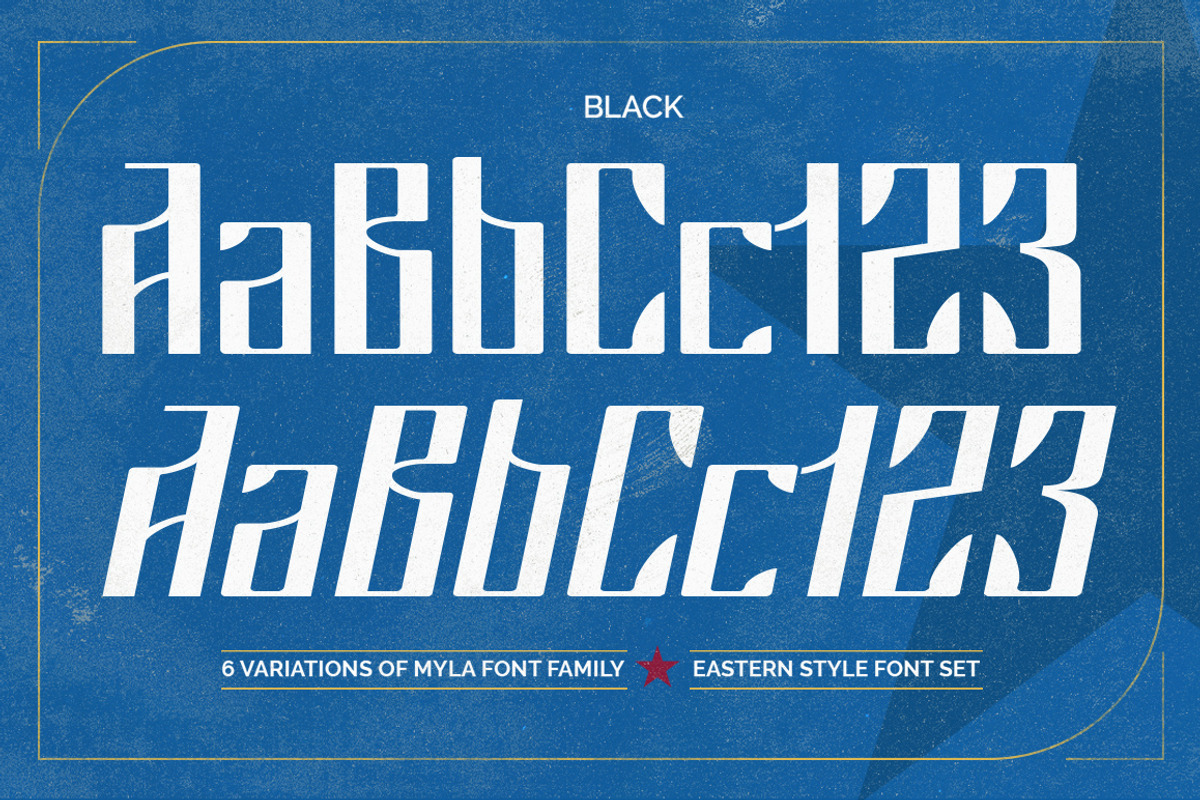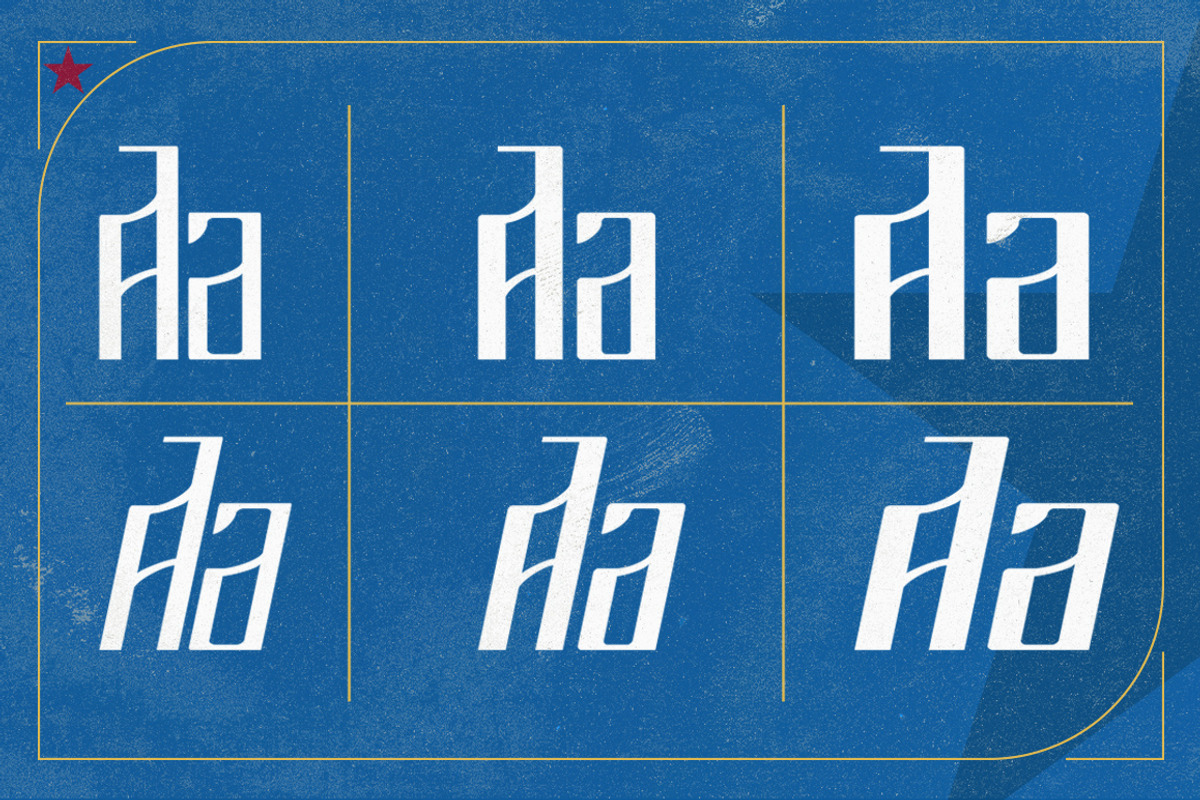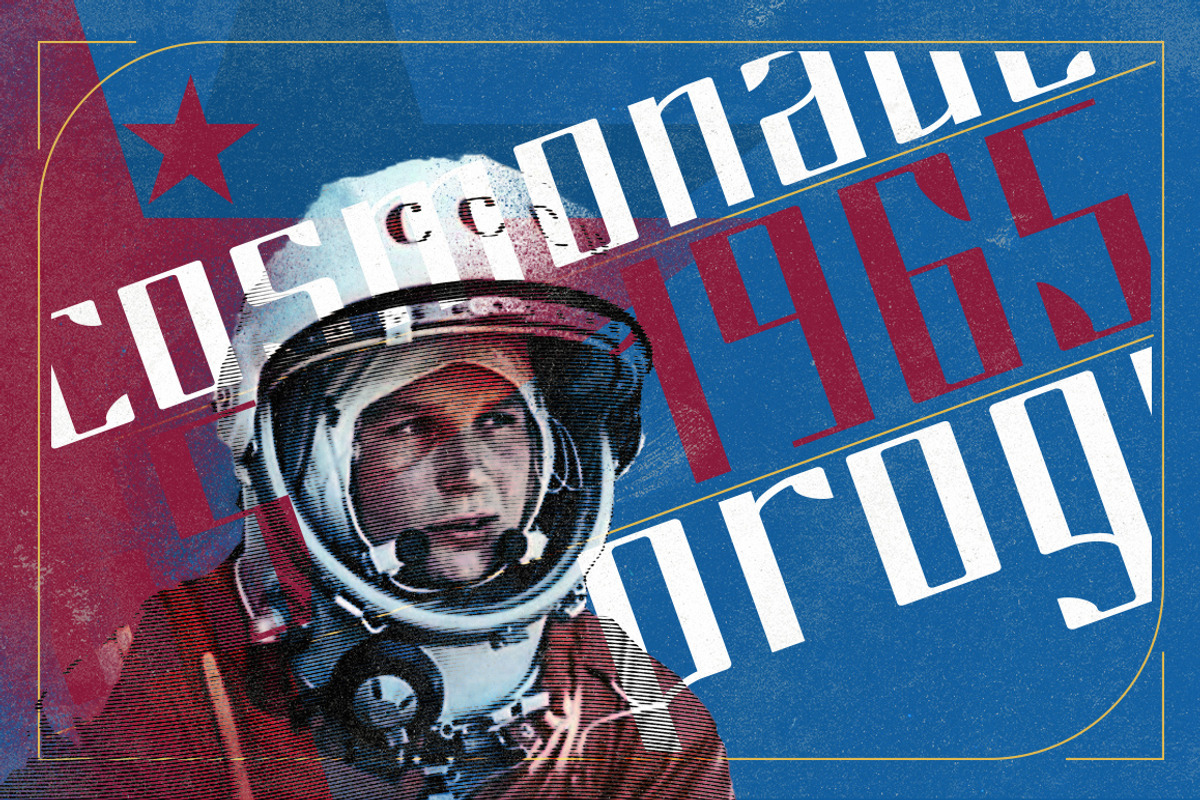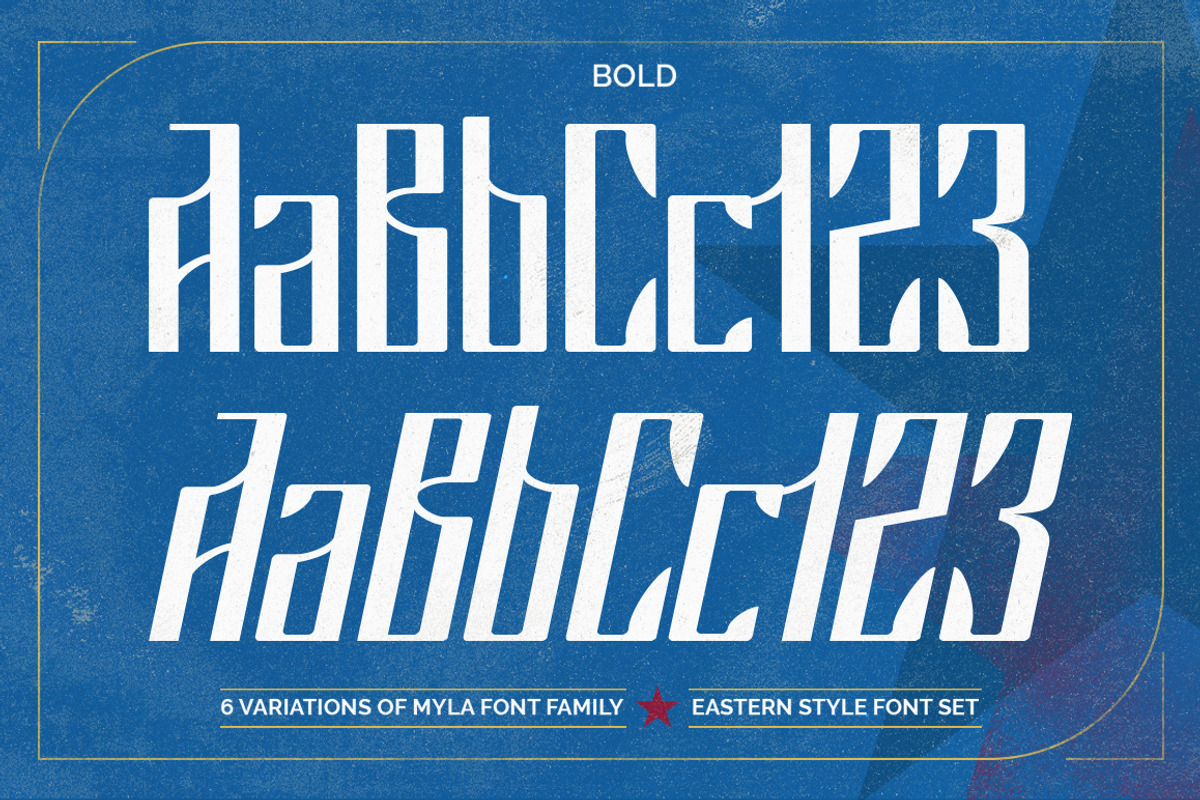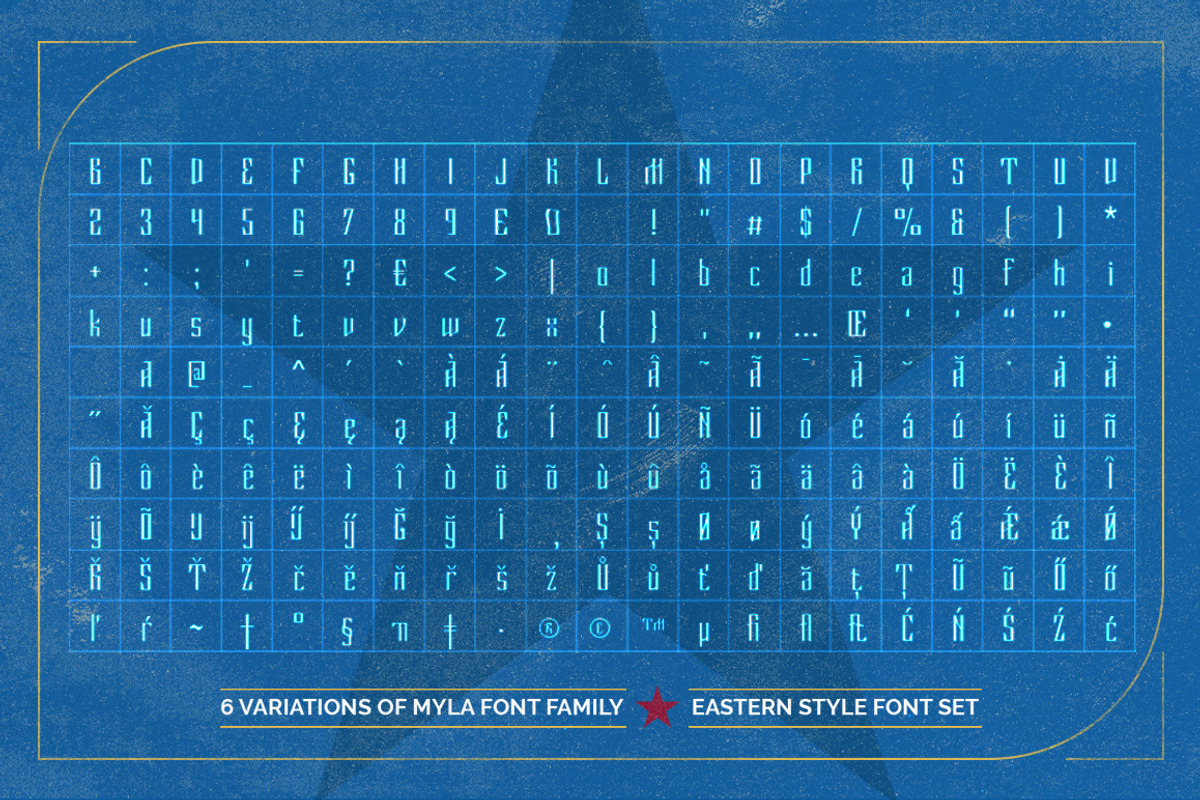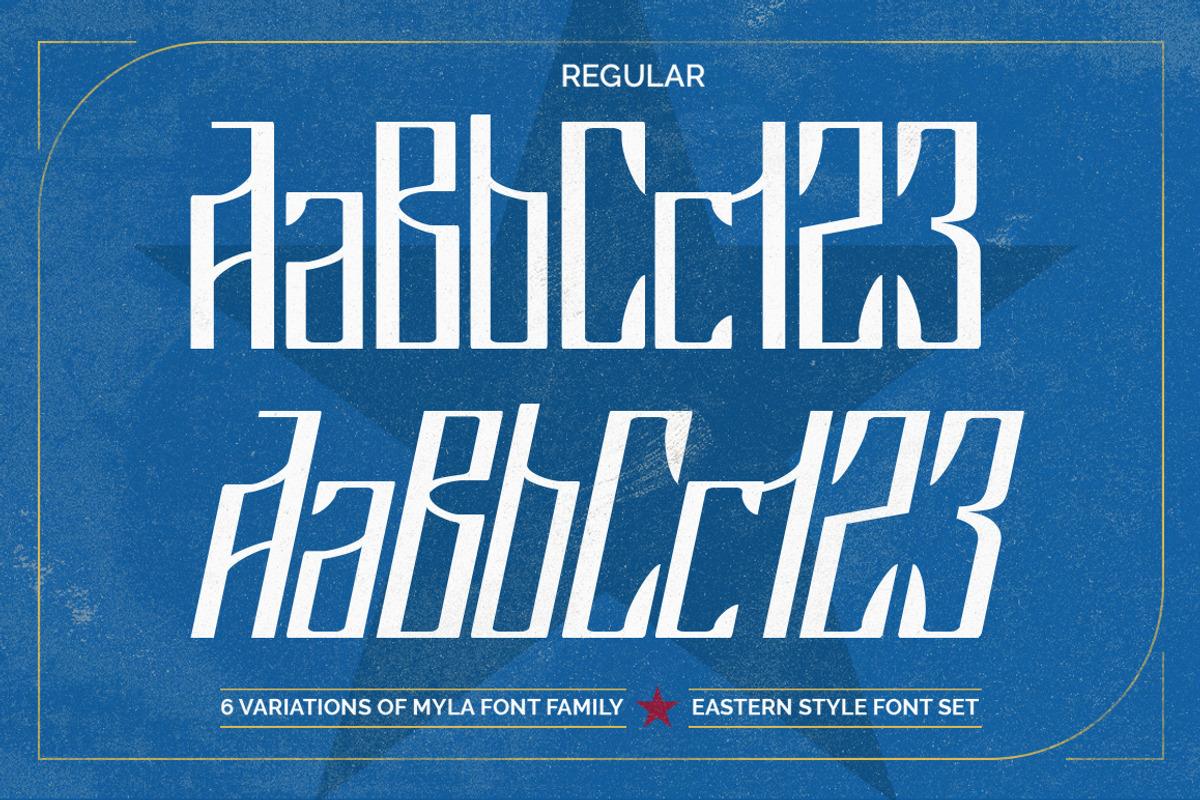
Myla Font
With Myla Fontyou can make it easier to convey the message in your design. Use its eastern, old soviet inspired style for awesome display, labeling, clothing, movie sceen, poster, movie title, gigs, album covers, logos, and much more.
It comes in 3 styles: Regular, Bold and Black in 2 variations of regular and italic. Inspired by easter and soviet tradition, hardworking people and 1960s it is ideal for retro and vintage projects, from clear designs to rough look designs.
The Myla font features:
Stylistic alternatives
International characters (Multilingual)